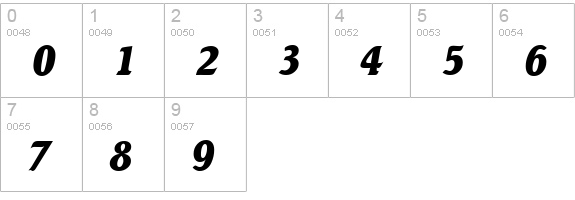
SeagullSerial-Black-Italic is a maximum-weight, dramatic, italic variant in the SeagullSerial typeface family \xE2\x80\x94 well suited to maximum-impact headlines, posters, and packaging.
SeagullSerial-Black-Italic font is a bold and sleek typeface designed for those seeking a modern and stylish look in their designs. With its elegant italicized style and sharp edges, this font exudes sophistication and professionalism. Perfect for headings, titles, and branding projects, SeagullSerial-Black-Italic commands attention and makes a lasting impression. The best part is, this font is available for free download at FontsMarket.com. Now you can elevate your designs with this premium typeface without breaking the bank. Don't miss out on the opportunity to add SeagullSerial-Black-Italic to your font collection today!